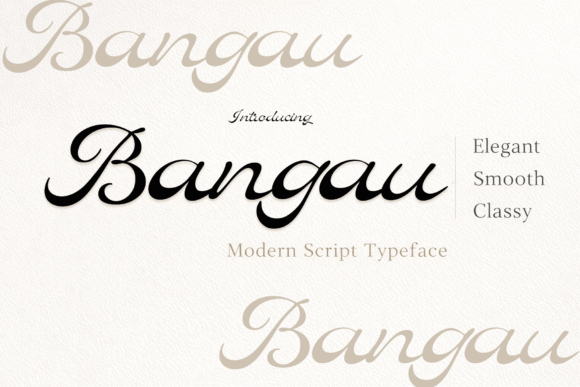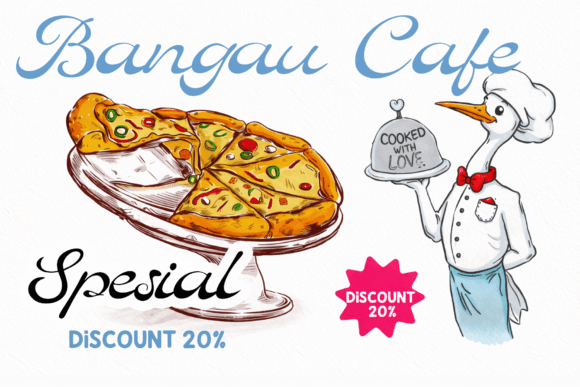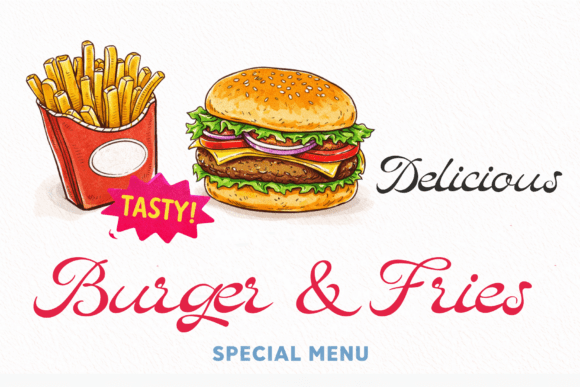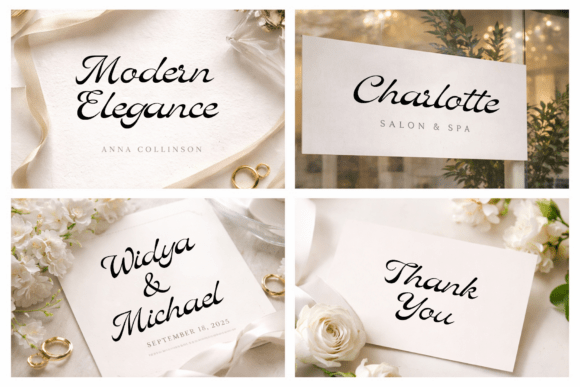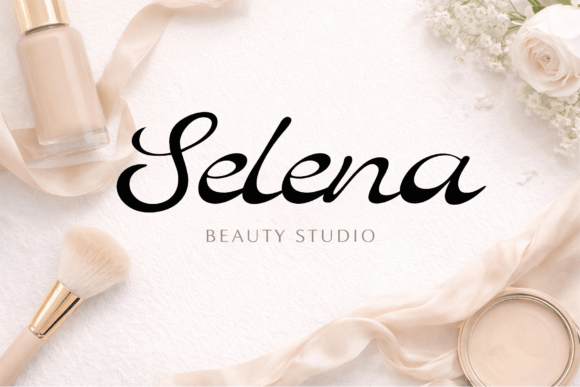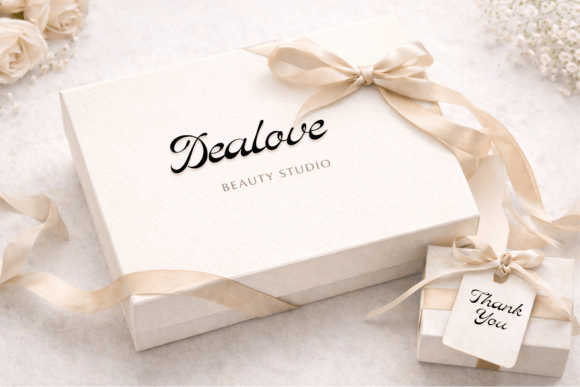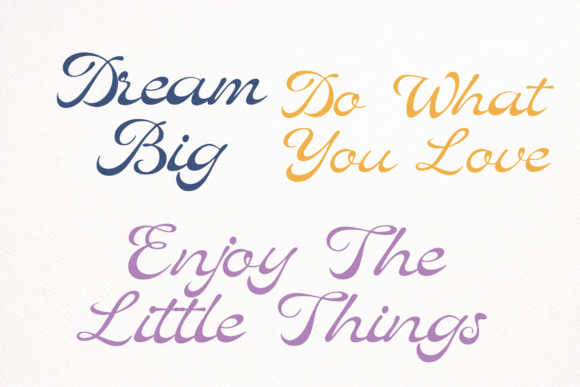
A Timeless Script Typeface: Elevate Your Designs with Bangau
Have you ever stumbled upon a beautiful handwritten quote in a magazine or a stunning wedding invitation that left you in awe? For designers, those moments are often a reminder of the power of typography in evoking emotions and creating lasting impressions. In the world of fonts, Bangau Font stands out as a masterful creation that embodies the essence of modern sophistication and elegance.
As a script typeface, Bangau Font is designed to add a touch of refinement and timelessness to various creative outputs. From logos and branding to packaging and wedding design elements, Bangau’s versatility and readability make it an invaluable asset for designers seeking to elevate their projects. With its polished, signature appeal, the Bangau Font is poised to take your designs to the next level.
Bangau Font Key Features
- Unique Characteristics: Bangau Font features a unique blend of traditional and modern elements, with intricate details and ornate designs that set it apart from other fonts.
Bangau Font Review
Overall, I’d say Bangau Font has some great features, but it also has some limitations that might make it less suitable for certain projects.
- Unique Character: Bangau Font has a distinctive, playful feel that can add a lot of character to a design. It’s perfect for projects that need a bit of whimsy.
- Legibility: Despite its quirky appearance, Bangau Font is actually quite legible, making it a good choice for body text or smaller display sizes.
- Font Variety: Bangau Font comes in a range of weights and styles, giving designers a lot of flexibility when it comes to choosing the perfect look for their project.
- Readability at Large Sizes: While Bangau Font is legible at smaller sizes, it can start to break apart and lose its coherence at larger sizes, which can be a problem for headlines or titles.
Bangau Font is a solid choice for designers who need a unique, playful font for their project. While it has some limitations, its distinctive character and flexibility make it a great option for the right kind of project. Just be sure to test it thoroughly and plan ahead for potential compatibility issues.
The Bangau Font is ideal for:
- Creating a unique and eye-catching brand identity.
- Designing promotional materials such as business cards, brochures, and flyers.
- Adding a touch of elegance and sophistication to wedding invitations and event materials.